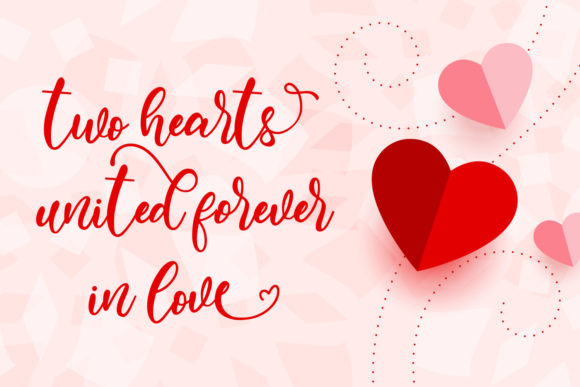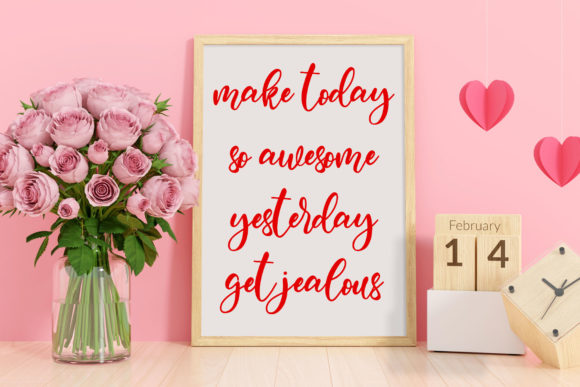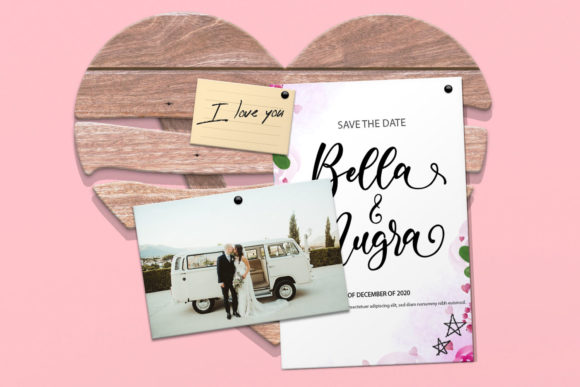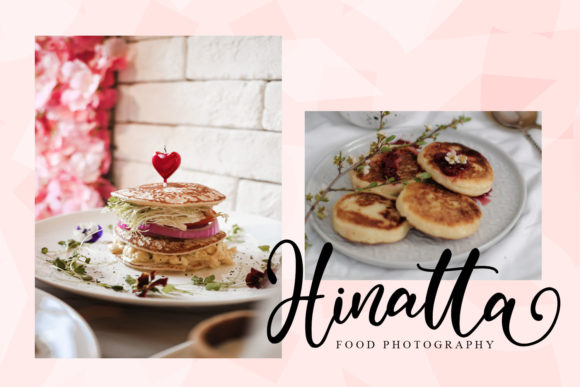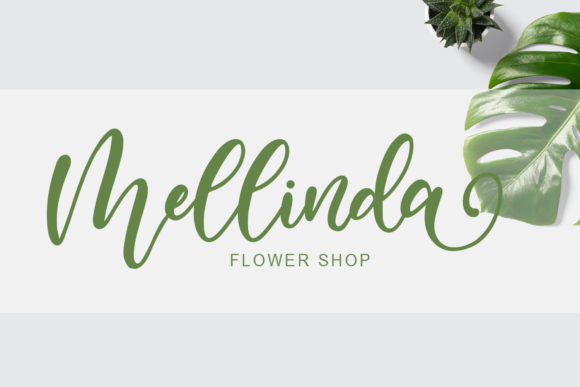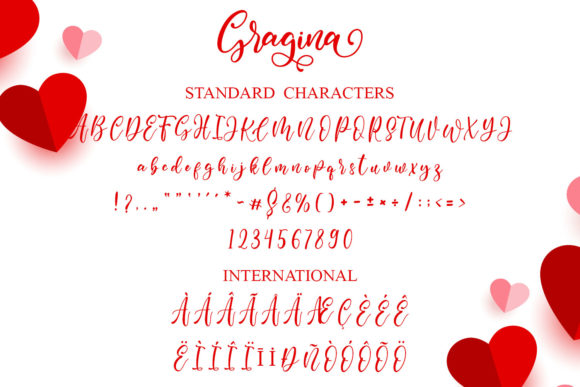
Gragina Font: Elevate Your Designs with Elegance and Sophistication
In the world of typography, fonts play a crucial role in conveying the tone and personality of a design. For designers and crafters seeking to add a touch of elegance and sophistication to their projects, Gragina Font is an exceptional choice. This stunning, flowing handwritten font is designed to captivate audiences with its unique and timeless style, making it perfect for a wide range of applications.
The Distinctive Charm of Gragina Font
Gragina Font boasts an incredibly distinct and elegant touch, setting it apart from other fonts in its category. Its flowing, handwritten script exudes a sense of refinement and luxury, making it ideal for designers who want to create spectacular designs that leave a lasting impression. Whether you’re working on a branding project, packaging design, or digital content, Gragina Font is sure to elevate your work to new heights.
Key Features of Gragina Font
- PUA Encoding: Gragina Font is PUA (Private Use Area) encoded, which means you can access all the glyphs and swashes with ease. This feature allows for greater flexibility and creativity in your designs, making it easier to experiment with different styles and effects.
- Elegant and Refined: The font’s elegant and refined appearance makes it perfect for projects that require a touch of sophistication. From wedding invitations to luxury branding, Gragina Font is sure to impress.
- Timeless Style: Unlike trendy fonts that quickly go out of style, Gragina Font boasts a timeless quality that ensures your designs will remain relevant for years to come.
- Versatile: Gragina Font is incredibly versatile, making it suitable for a wide range of applications, including:
- Packaging design
- Digital content (e.g., blogs, social media)
- Print materials (e.g., brochures, flyers)
Why Choose Gragina Font?
With so many fonts available, why choose Gragina Font for your next project? Here are just a few compelling reasons:
- Unique Style: Gragina Font offers a distinctive style that will set your designs apart from the competition.
- Ease of Use: The font’s PUA encoding makes it easy to access and use the glyphs and swashes, saving you time and effort.
- High-Quality: Gragina Font is a high-quality font designed to deliver exceptional results in any design application.
Tips for Using Gragina Font Effectively
To get the most out of Gragina Font, here are some tips for using it effectively in your designs:
- Experiment with Different Sizes: Gragina Font looks great in a variety of sizes, from large headings to smaller body text.
- Combine with Other Fonts: Try pairing Gragina Font with other fonts to create a unique and visually appealing contrast.
- Use Swashes and Glyphs: Take advantage of the font’s PUA encoding to add swashes and glyphs to your designs, adding an extra touch of elegance and sophistication.
- Play with Color: Gragina Font looks great in a range of colors, from rich jewel tones to metallic finishes.
In conclusion, Gragina Font is an exceptional choice for designers and crafters seeking to add a touch of elegance and sophistication to their projects. With its unique and timeless style, PUA encoding, and versatility, this font is sure to elevate your designs to new heights. Whether you’re working on a branding project, packaging design, or digital content, Gragina Font is the perfect choice for creating spectacular designs that leave a lasting impression.